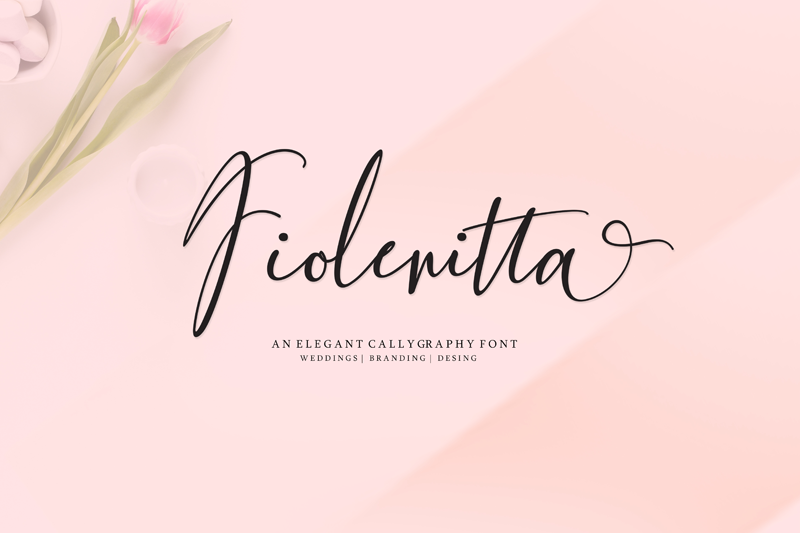
for commercial license: https://creativemarket.com/mightype/2645217-Fiolenitta Script is a modern calligraphy font with the current handwriting style, this font is perfect for branding, wedding invites, magazines, mugs, business cards, quotes, posters, and more, you can try first if you want to buy this font. Fiolenitta Script is equipped with 444 glyphs. and by having many of these glyphs there will be able to choose the letters according to your likes, lots of variations and options for each letter, so you can customize on your design choices. with pleasure and happiness, in this font package you will get: Fiolenitta Script TTF Fiolenitta Script OTF to use a variety of flying machines, you need a program that supports OpenType features such as Adobe Photoshop Cs / Adobe Photoshop CC, Adobe Illustrator CS / Adobe Illustrator CC, Adobe Indesign and Corel Draw and many more programs that support OpenType. If you do not have a program that supports OpenType, you can access all the alternate glyphs using Font Book (Mac) or Character Map (Windows) if you have any question, do not hesitate to contact me by email mightype89@gmail.com Thanks and happy designing :-) Thank You for purchase |